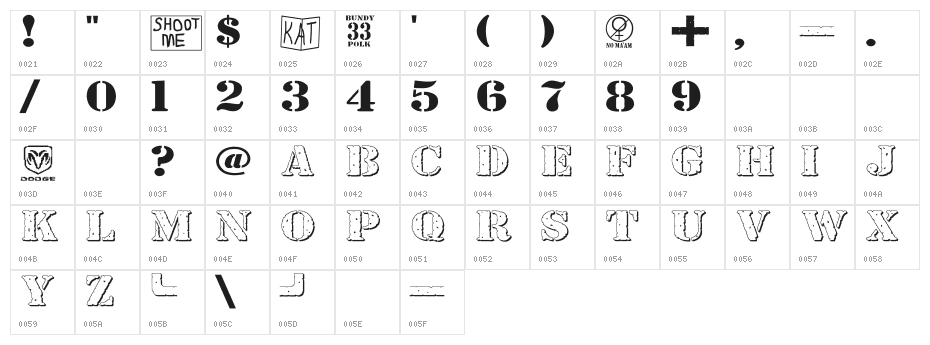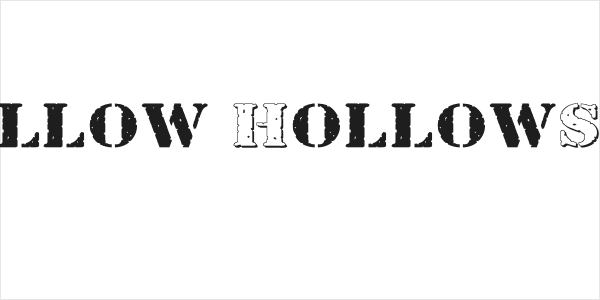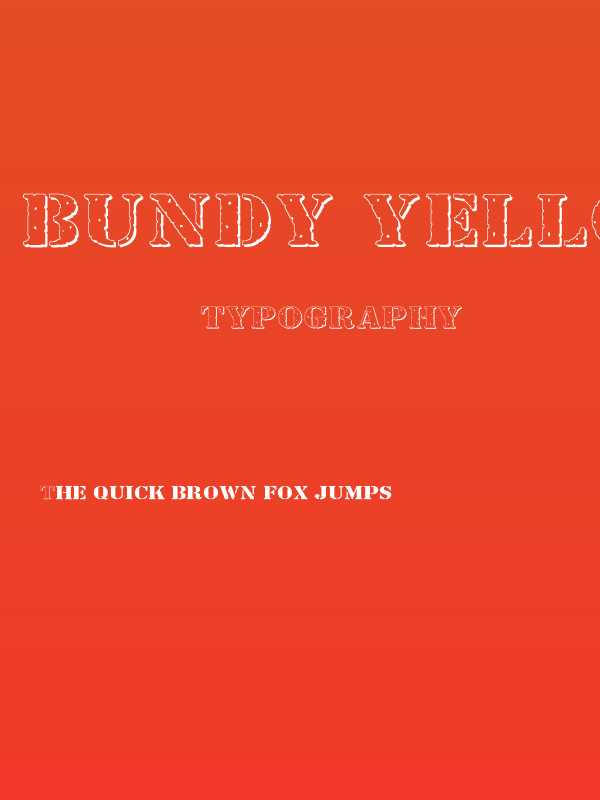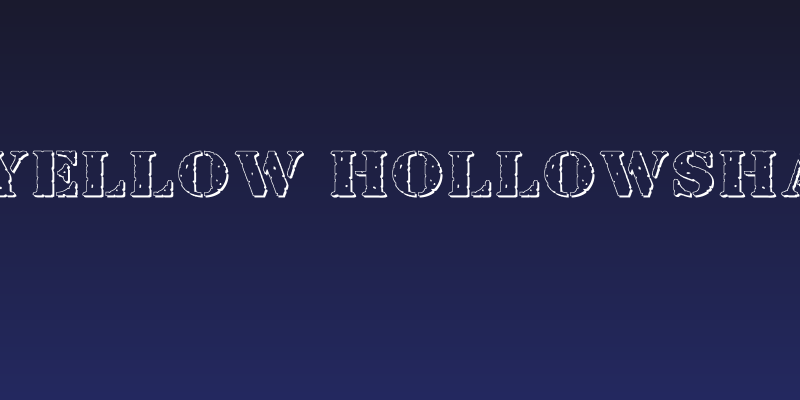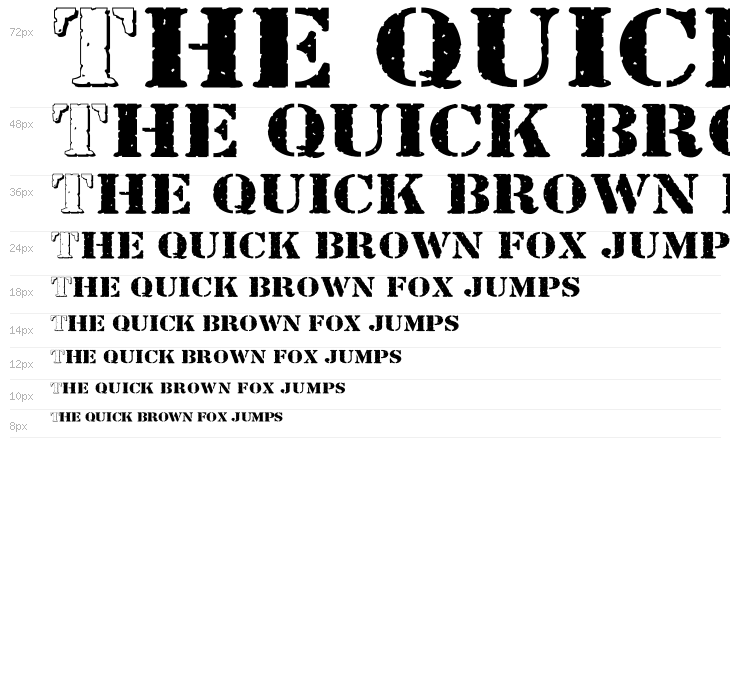
Bundy Yellow HollowShadowed Font
Bundy Yellow HollowShadowed Description
This font features a bold, distressed style with a hollow shadow effect, giving it a rugged and vintage appearance. The uppercase letters are prominently displayed with a strong presence, while the numbers and special characters maintain the same boldness and distressed texture. The font's unique hollow shadow adds depth and dimension, making it stand out in any design. The characters are evenly spaced, ensuring readability despite the distressed look. This font is ideal for projects that require a bold statement with a touch of vintage flair.